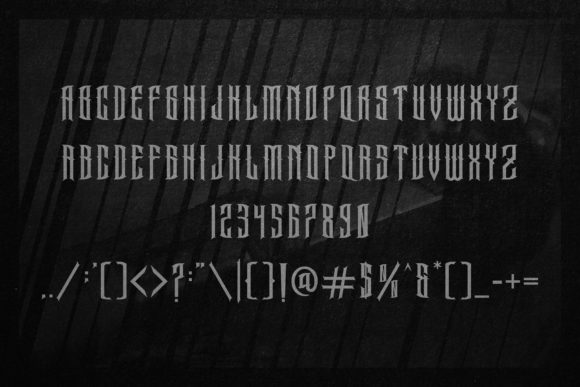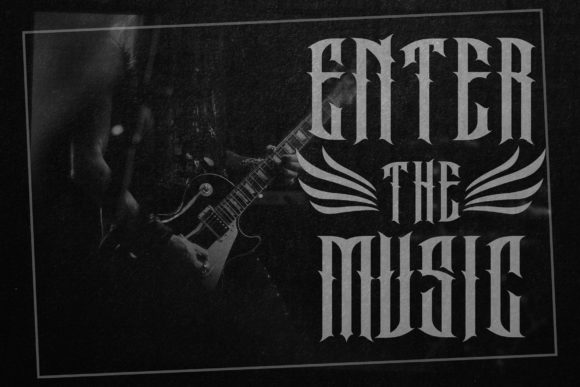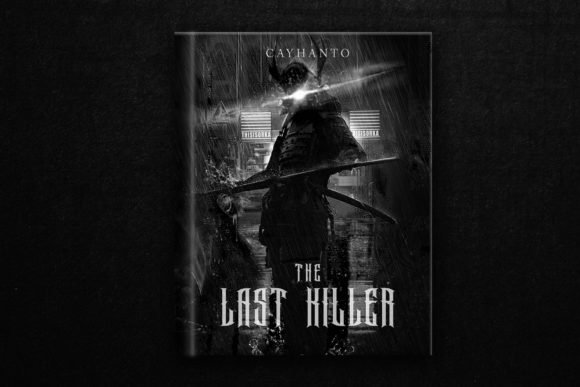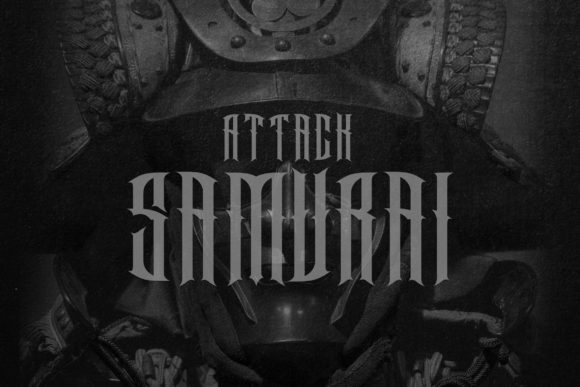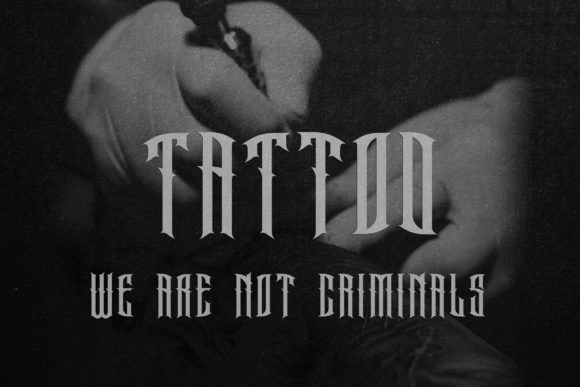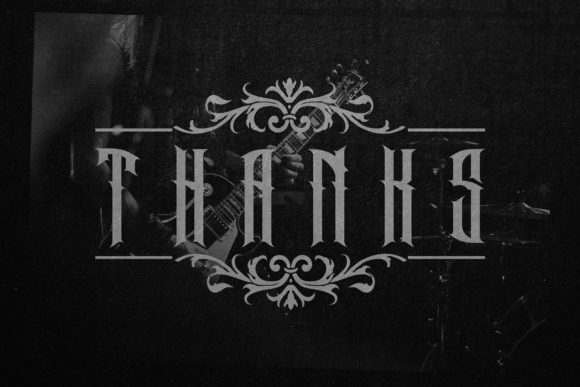
Introducing Endma Font: The Bold and Assertive Display Font
In the world of typography, a font can make or break a design. It’s the perfect blend of style, elegance, and personality that can elevate a creation from ordinary to extraordinary. If you’re a designer, crafter, or simply a font enthusiast, you’re in luck because we’re excited to introduce you to Endma Font – a bold and assertive looking display font that’s about to become your new favorite.
The Power of Endma Font
Endma is a bold and assertive looking display font that’s designed to make a statement. Its strong and confident appearance makes it perfect for a wide range of projects, from branding and advertising to packaging and digital media. No matter the topic or industry, Endma Font is an incredibly valuable asset to your font library, providing the potential to elevate any creation with its unique and captivating style.
Key Features of Endma Font
- Bold and Assertive: Endma Font boasts a bold and assertive appearance that’s sure to grab attention and make a lasting impression.
- Display Font: Designed specifically as a display font, Endma is perfect for headlines, titles, and short text passages where you want to make a statement.
- Versatile: Endma Font is incredibly versatile and can be used across a wide range of projects, from digital media to print materials.
- Elegant and Refined: Despite its bold appearance, Endma Font has an elegant and refined quality that adds a touch of sophistication to any design.
Why Choose Endma Font?
With so many fonts available, why choose Endma Font? Here are just a few reasons why designers and crafters are falling in love with this incredible display font:
- Unique Style: Endma Font has a unique and distinctive style that’s sure to set your designs apart from the crowd.
- Easy to Read: Despite its bold appearance, Endma Font is easy to read, making it perfect for use in a variety of contexts.
- High-Quality: Endma Font is a high-quality font that’s designed to deliver exceptional results, whether you’re working on a digital project or a print-based design.
How to Use Endma Font
Endma Font is incredibly easy to use and can be incorporated into a wide range of projects. Here are a few ideas to get you started:
- Branding and Advertising: Use Endma Font to create bold and eye-catching headlines, titles, and taglines that make a lasting impression.
- Packaging Design: Add a touch of elegance and sophistication to your packaging designs with Endma Font.
- Digital Media: Use Endma Font to create stunning digital media, including social media graphics, blog posts, and website headers.